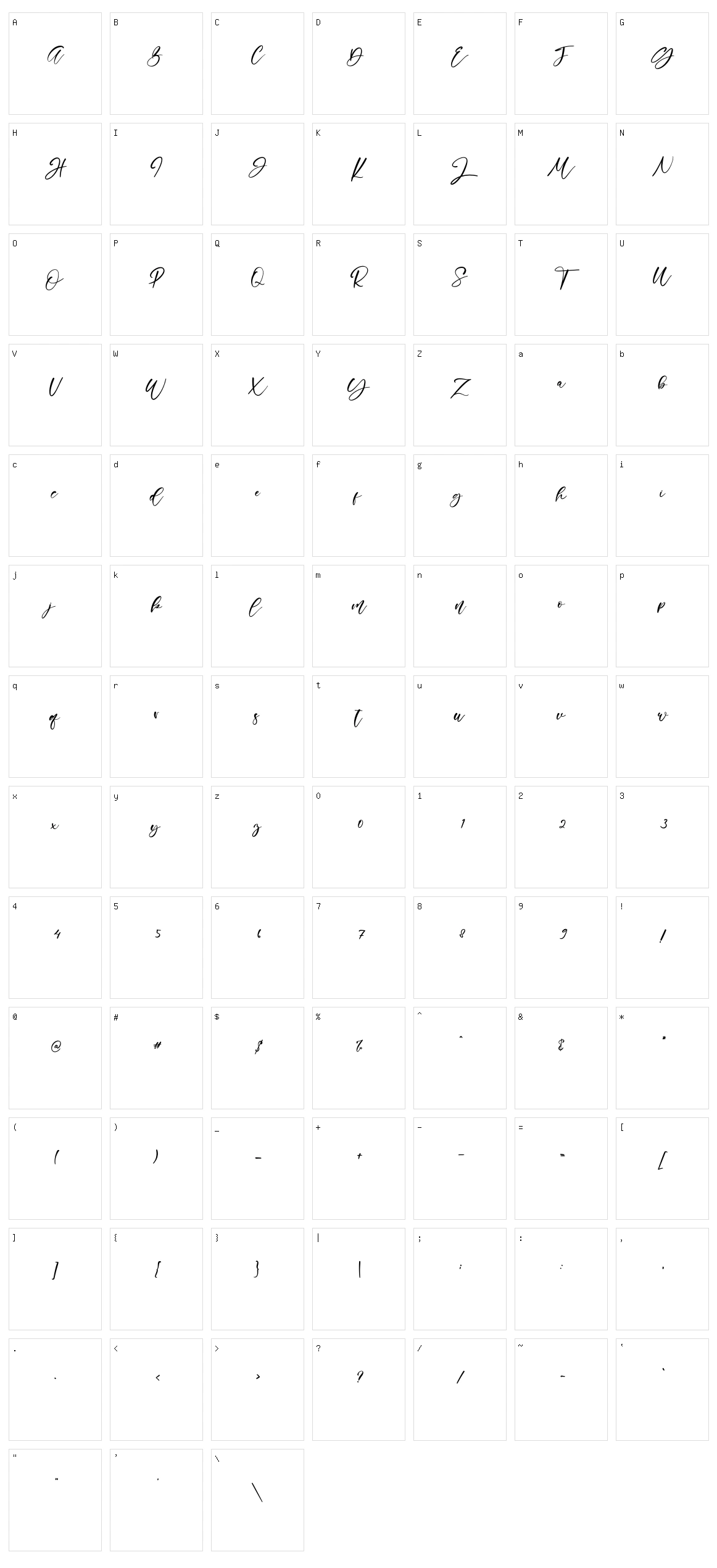
The free font Lamonnisa is carefully designed by Kong Font, showcasing a thoughtful balance of creativity and usability and falls under the Script font style. When you download the ZIP file, it contains only 158.1 KB of font files, making it lightweight and quick to download. Please review the license details below to understand permitted usage and distribution rights. If license information is not available, we recommend using this font for personal projects only or contacting the author directly for commercial usage permissions.